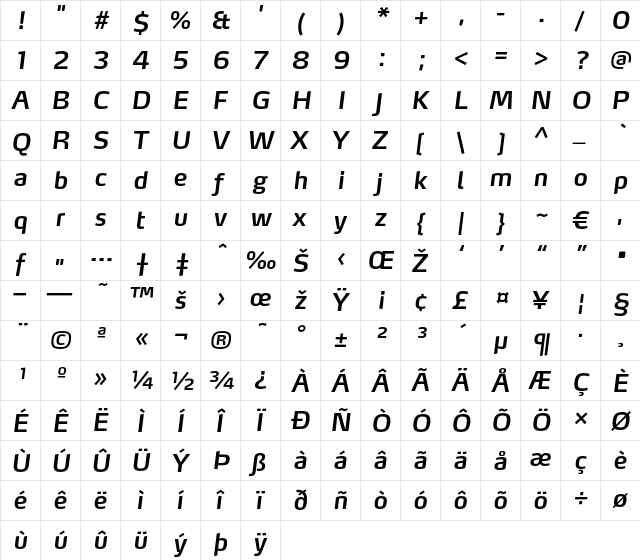
MaxLF-SemiBoldItalic Regular
Design Context for MaxLF-SemiBoldItalic Typeface
MaxLF-SemiBoldItalic is a composed and adaptable typeface that performs quietly and consistently across a wide range of design contexts. Its italic angle brings a sense of urgency and motion to the letterforms. The heavy weight commands attention and anchors typographic hierarchies.
Pro Tip: Use MaxLF-SemiBoldItalic for emphasis, pull quotes, and subheadings where its slanted energy can add rhythm to the layout.